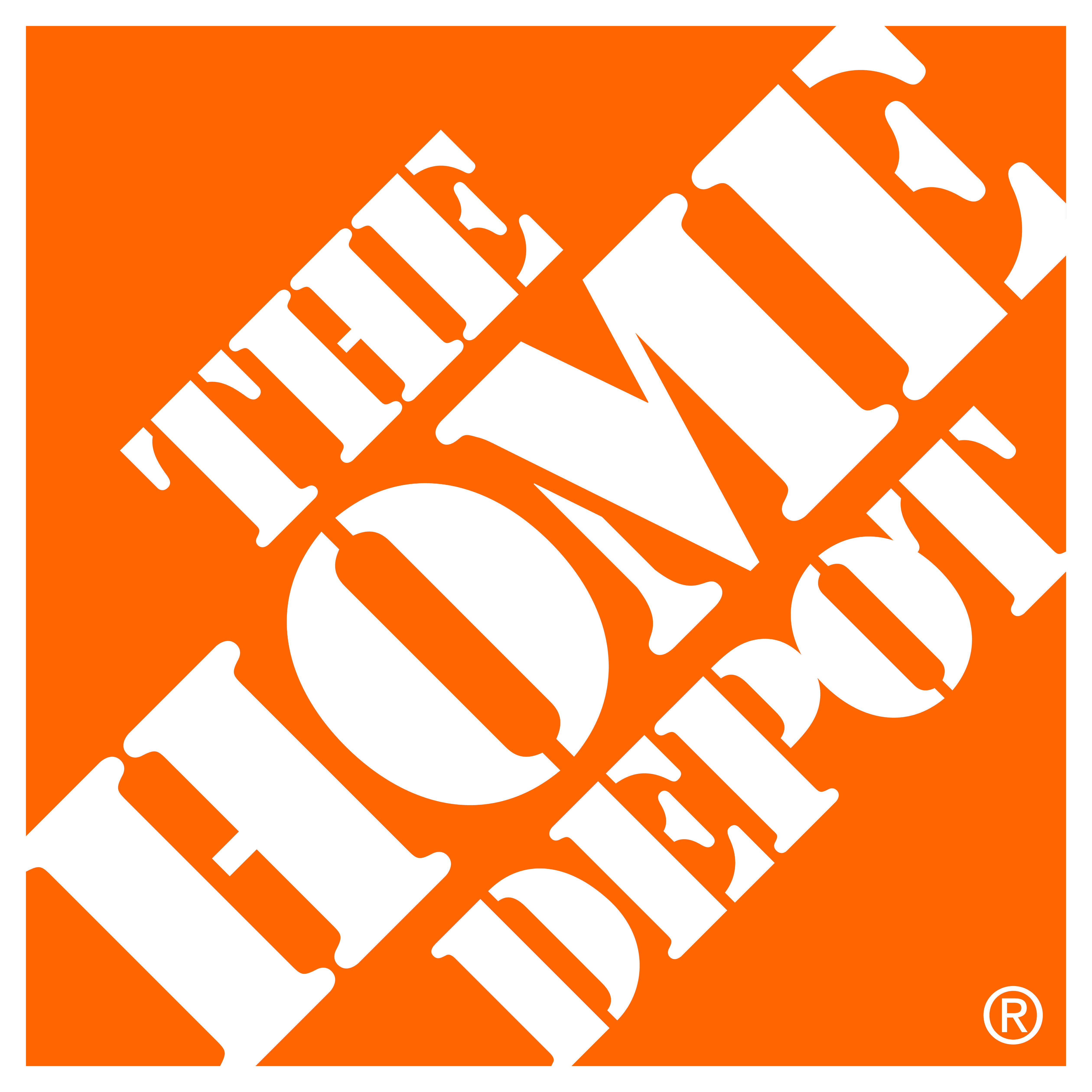
Home Depot Logo Font. Undoubtedly, home depot has a readable wordmark. Web the home depot maintains a but while the home depot logo may sound simplistic, it features an excellent color.
Web i hope you enjoyed these collections of home depot similar fonts. The home depot font used in the logo is “ stencil standard (d) ” meticulously crafted by gerry powell. Web the home depot logo font. And instead of a custom font,. Web the home depot maintains a but while the home depot logo may sound simplistic, it features an excellent color. We searched the web and discovered the. Web what font is the home depot logo? Undoubtedly, home depot has a readable wordmark. Web learn how to create and maintain a consistent and compelling brand identity for the home depot, the world's largest home.
And instead of a custom font,. Web i hope you enjoyed these collections of home depot similar fonts. The home depot font used in the logo is “ stencil standard (d) ” meticulously crafted by gerry powell. Web learn how to create and maintain a consistent and compelling brand identity for the home depot, the world's largest home. We searched the web and discovered the. Web the home depot maintains a but while the home depot logo may sound simplistic, it features an excellent color. Web the home depot logo font. Undoubtedly, home depot has a readable wordmark. Web what font is the home depot logo?